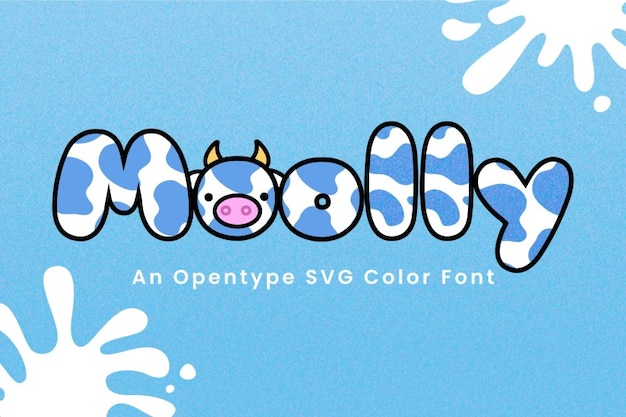
Molly is one of the best bubble fonts on the web. This OpenType SVG color font is suitable for children’s designs and quirky items, whether they are for personal or commercial purposes. Download it now!